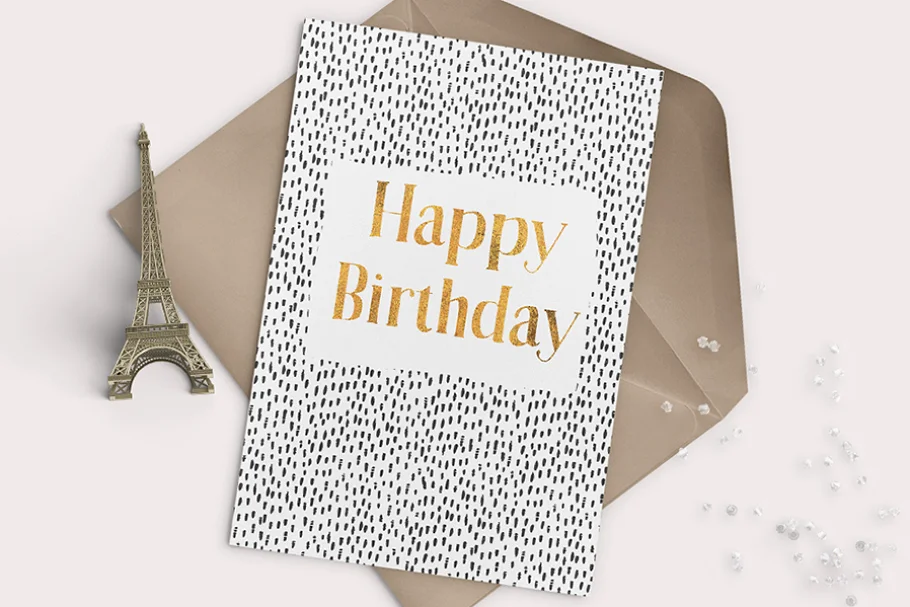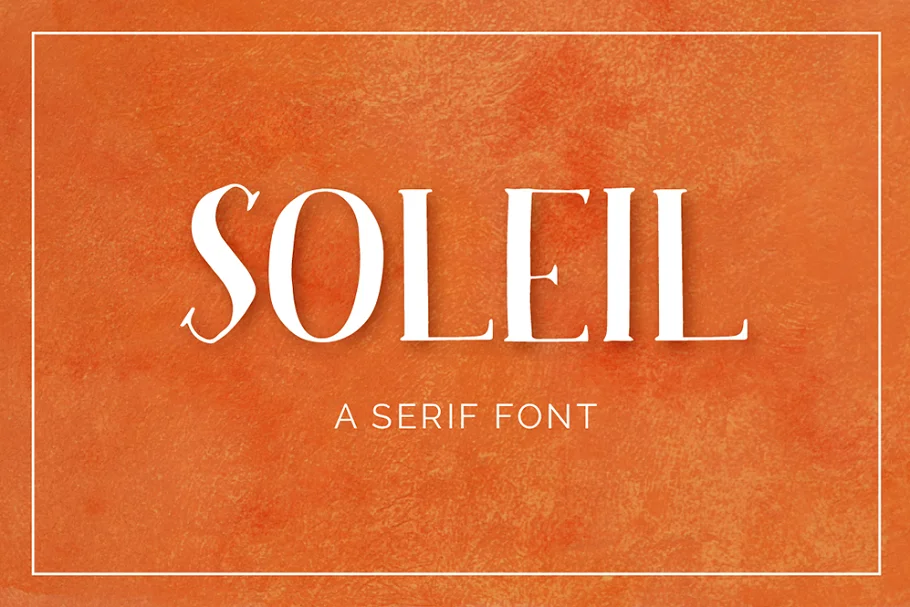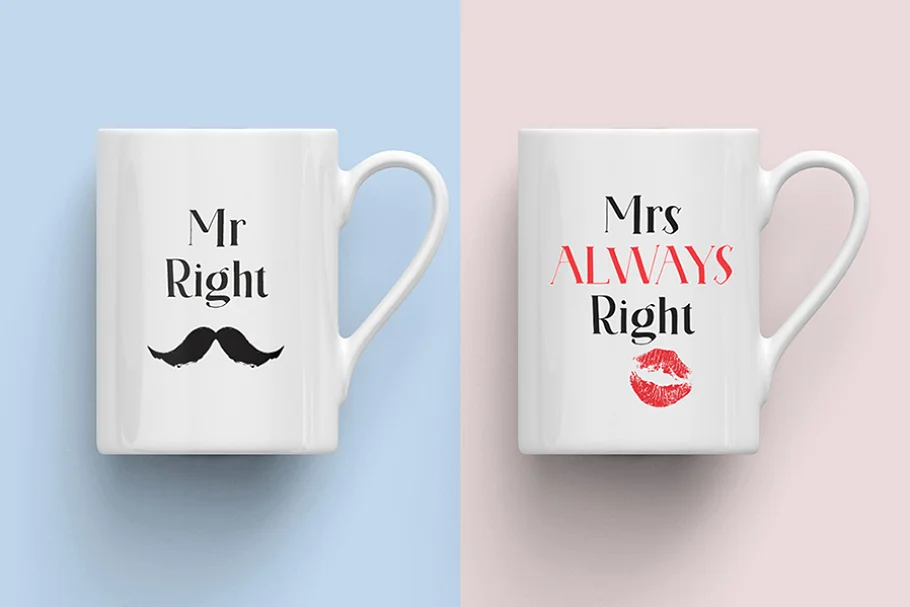
About the Soleil Font
INTRODUCING SOLEIL, A SERIF FONT This font was drawn by hand and carefully digitized to preserve the rough yet playful look.
Soleil comes with capital and lowercase characters, punctuation, numerals, and symbols.
It supports most European languages (all international characters are represented on a preview).
Soleil is suitable for packaging design, branding, logotypes, print or digital ads, and many more.